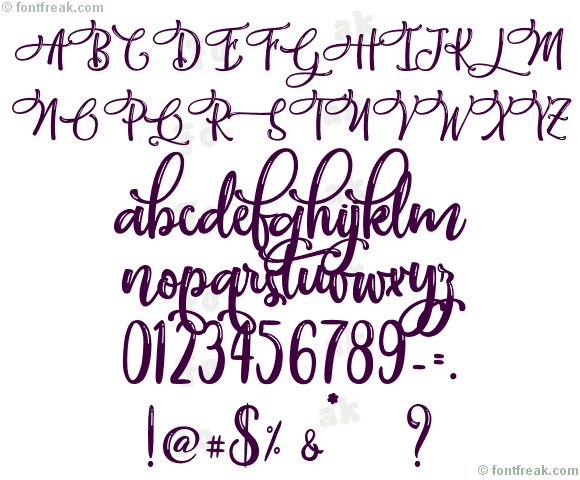
HandyInk-PersonalUse
HandyInk-PersonalUse by Suthi Srisopha is a delightful handwritten font that embodies a warm, inviting character. This script font features smooth, flowing strokes that mimic the natural fluidity of handwriting, making it perfect for projects that require a personal touch. The stroke weight is consistent, providing a balanced aesthetic, while the subtle contrast adds a layer of sophistication. The spacing between letters is generous, enhancing readability without sacrificing the charm of its handwritten style. Decorative elements such as swirls and loops accentuate the design, contributing to its whimsical appeal.
This font is ideally suited for a variety of creative applications. It shines in wedding invitations, where its elegant yet casual feel can set the perfect tone for a romantic event. Additionally, HandyInk-PersonalUse is an excellent choice for greeting cards, allowing for a heartfelt message to resonate with loved ones. Graphic designers seeking to create engaging social media graphics will find this font particularly useful, as it can bring a unique flair to posts and ads. Small business owners can also leverage this font for branding, using it on product labels or promotional materials to capture a friendly, approachable image.
The target audience for HandyInk-PersonalUse includes graphic designers, content creators, and small business owners looking to add a personal touch to their projects. This font resonates well with those who wish to convey warmth and creativity through their designs.
What sets HandyInk-PersonalUse apart is its ability to blend elegance with a casual, handwritten feel, making it versatile for numerous projects. Whether you’re crafting a sentimental card or designing eye-catching promotional materials, this font can elevate your creations. Don’t miss the chance to explore the HandyInk-PersonalUse font free download and infuse your work with a personal touch.